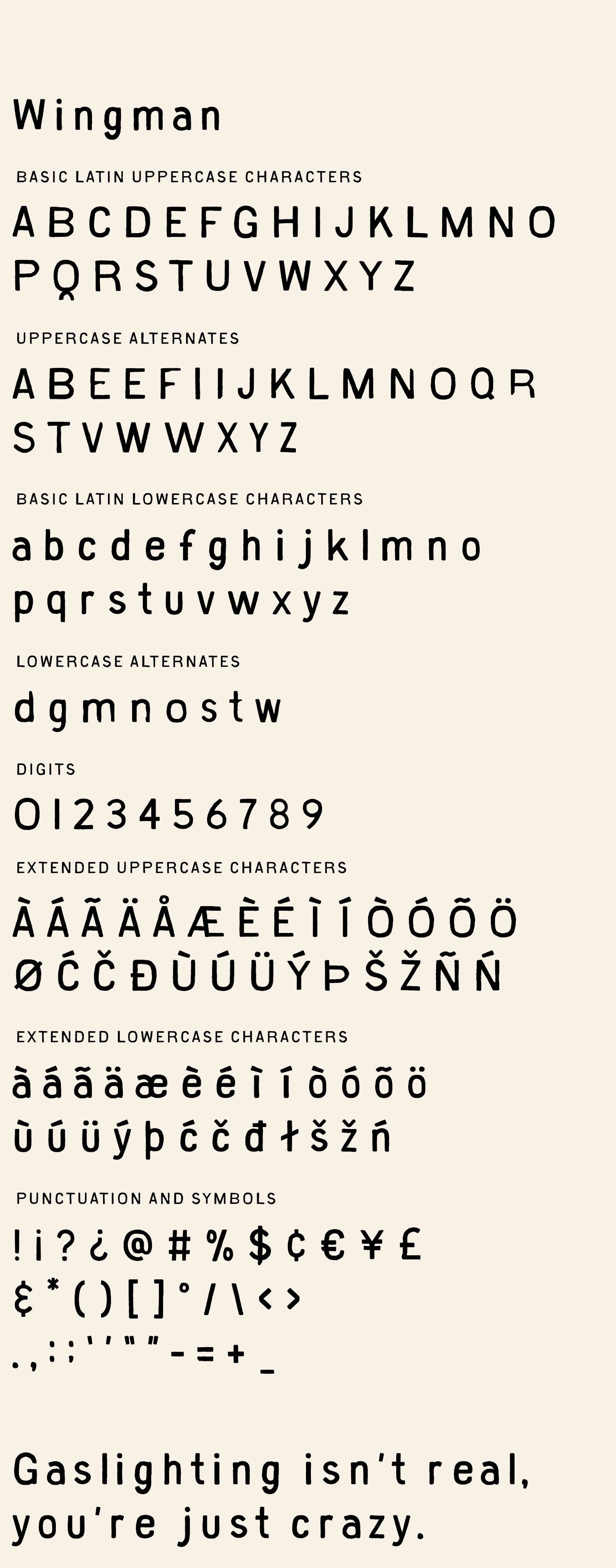
Wingman
Following in the footsteps of Birdie and Big Bird, Wingman is here to back you up.
Inspired by 1950s poster lettering, it’s a hand-drawn sans with a friendly lean and a little bounce. Now with lowercase, so you don’t have to fake it. Great for headlines, branding, and anything that needs to feel warm without going full retro.